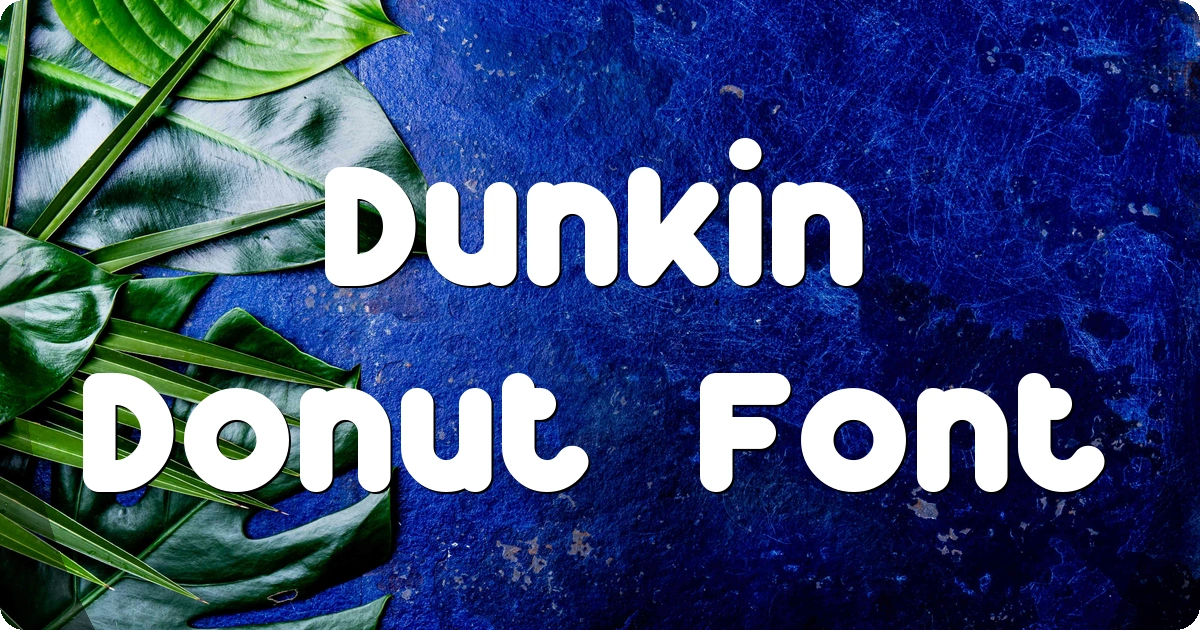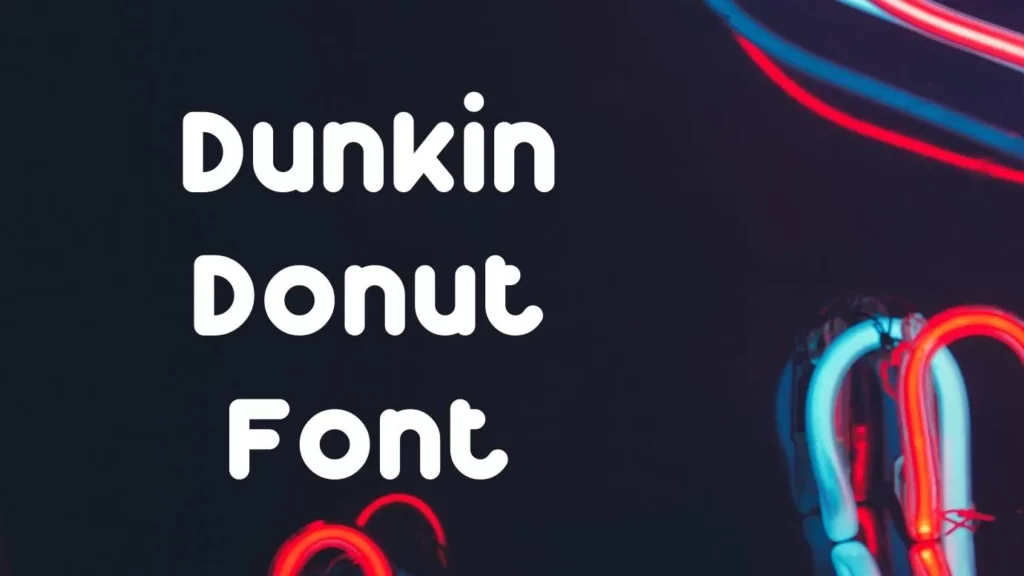
Delivering you a logo-based Dunkin Donut Font that has bold texture and comes in many modern styles. It was inspired by a very famous coffee shop chain Dunkin Donut which was introduced in the 1950s and got popularity worldwide. Due to this reason, this typeface font also got popularity day by day.
It was created by two very talented designers Neale Davidson and Shayna Davidson and it was published in 2012. They created this masterpiece so perfectly that every designer appreciated them and use this fancy style in their projects. It was published by an American famous Pixel Sagas.
All popularity is from its name and this typeface’s elegant appearance. This funky font has eight amazing styles and 65 unique glyphs. Its’ perfect style is suitable for logos and many other brand projects.
Therefore, the Dunkin Donut typeface has online generators through which you can make online fonts without installing them into your system. The pairing nature makes it more appealing as you can make more styles and combinations.
Here is a sans-serif unique logo-based Dunkin Donut typeface that has a bold shape and cheerful colors that attract a large number audience. You can take a look at the font in a given picture and use it in your project.
Dunkin Donuts is a coffee chain that has names all over the world. It is a very classy brand that has many stores not only in America but all over the world. In its logo, a very cool and appealing typeface Dunkin Donut texture was used that is a perfect logo font. That belongs to a sans-serif font family. It is used by many other well-known designers.
You can use this TrueType font in your projects like logos, website designing, blogs, banners, brands, advertisements, and posters. It can be used in graphic design and video games. It can be used in display projects and give an extra attractive look on both tiny as well as the big screen.
It can also be used on social media platforms, you can use this font in descriptions and posts. It has a great name on YouTube as you make creative thumbnails with it. you can use it with antic font.
Furthermore, it plays important role in CSS, Adobe Photoshop, Illustrator, and Canvas. You can use it in business, presentations, headlines, magazines, book covers, T-shirt designing, and many other fun projects.
What is the type of Dunkin-Donut Font?
It is a logo-based font that has hundreds of characters and amazing glyphs.
Who designed the Dunkin Donut Font?
It was created by two very talented designers Neale Davidson and Shayna Davidson and it was published in 2012.
Which font goes with Dunkin Donut texture?
Many fonts pair with this OpenType font but it is the best pairing with Fredoka Font.
What are the similar fonts to Dunkin Donut typeface?
You can find many similar fonts but the closest one is the Spiderman font.